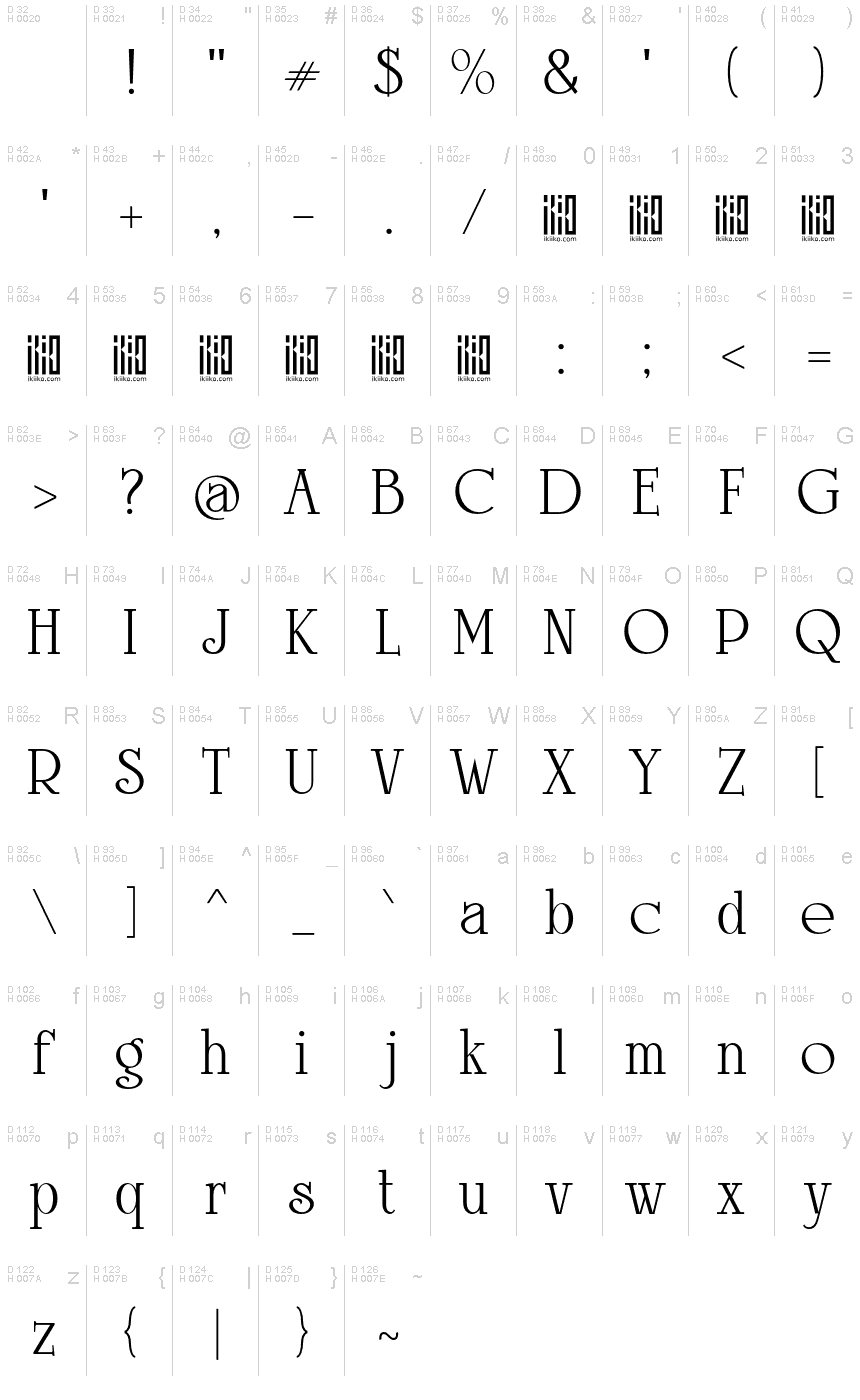
Sailor Vito emerges as a distinctive creation from the imaginative minds at Ikiiko Type, embodying a refined balance between classic serifs and contemporary flair. Crafted with a semi-light weight, this font boasts an elegant and airy presence that whispers sophistication while maintaining strong readability.
The flowing serifs accentuate the font's charm, making Sailor Vito an excellent choice for designers seeking to infuse their work with character and grace. Whether gracing the pages of an artisanal magazine, adorning wedding invitations, or elevating branding materials, this typeface's versatility shines across various creative avenues.
With its aesthetic appeal rooted in both tradition and modernity, Sailor Vito adds an artistic touch that is both aesthetically pleasing and functionally versatile—perfect for projects that require a touch of elegance without sacrificing clarity.